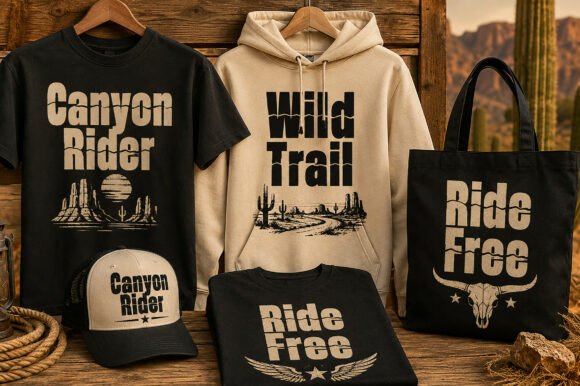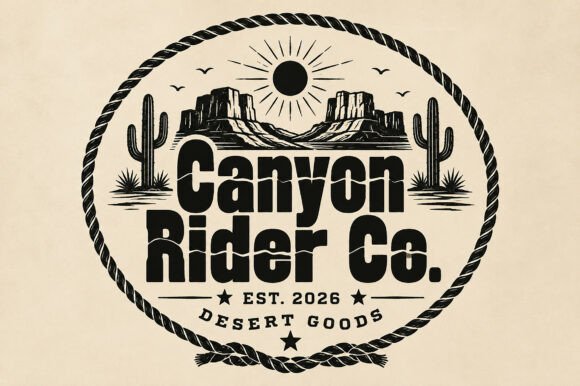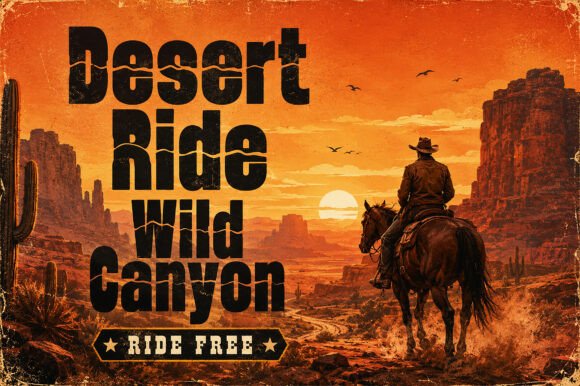
Introduction to Canyon Rider Font
Canyon Rider is a bold western display font inspired by rugged desert landscapes, vintage cowboy culture, and adventurous frontier spirit.
Featuring strong letterforms, unique canyon-cut details, and a distinctive western personality, this typeface is designed to make a powerful statement in any project Perfect for logos, branding, apparel designs, posters, packaging, signage, album covers, social media graphics, and outdoor adventure-themed projects.
Key Features of Canyon Rider Font
Why Choose Canyon Rider Font?
Canyon Rider Font offers exceptional quality and versatility, making it a valuable addition to your design toolkit. Whether you’re creating for personal projects or commercial use, Canyon Rider Font delivers professional results.